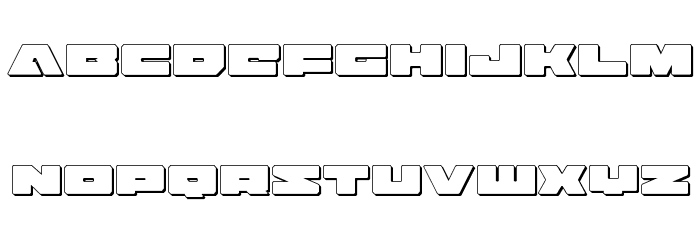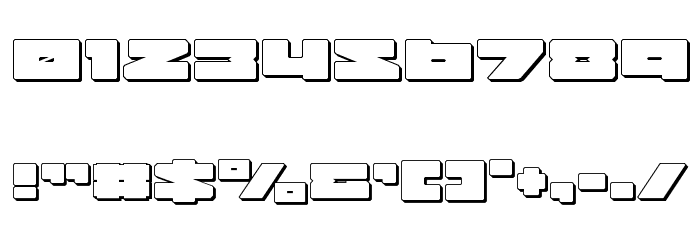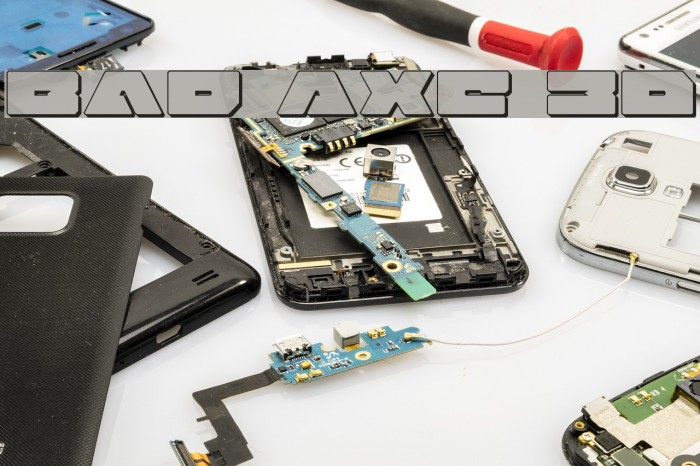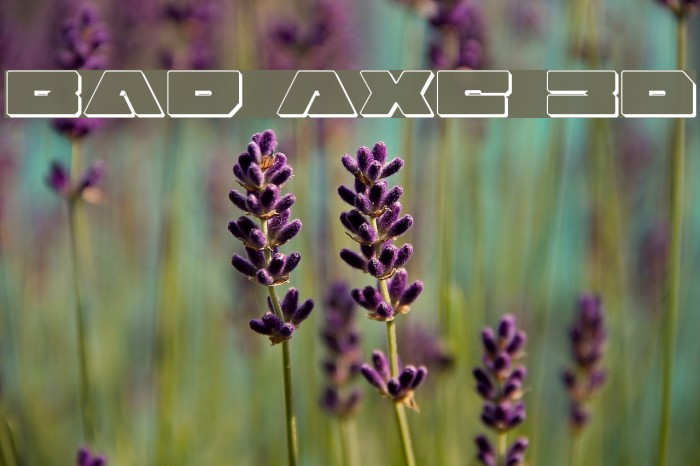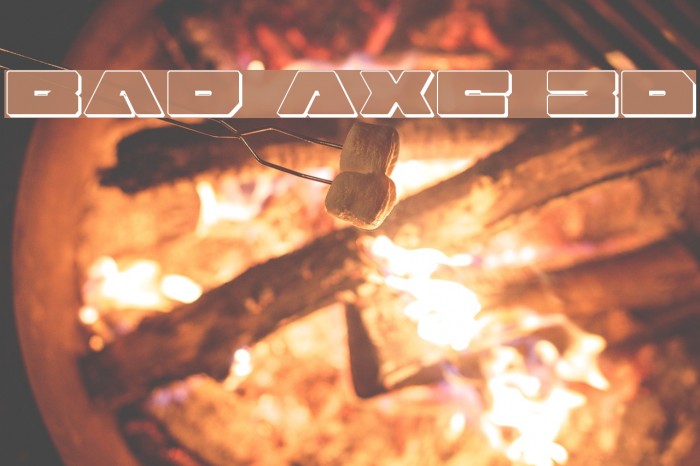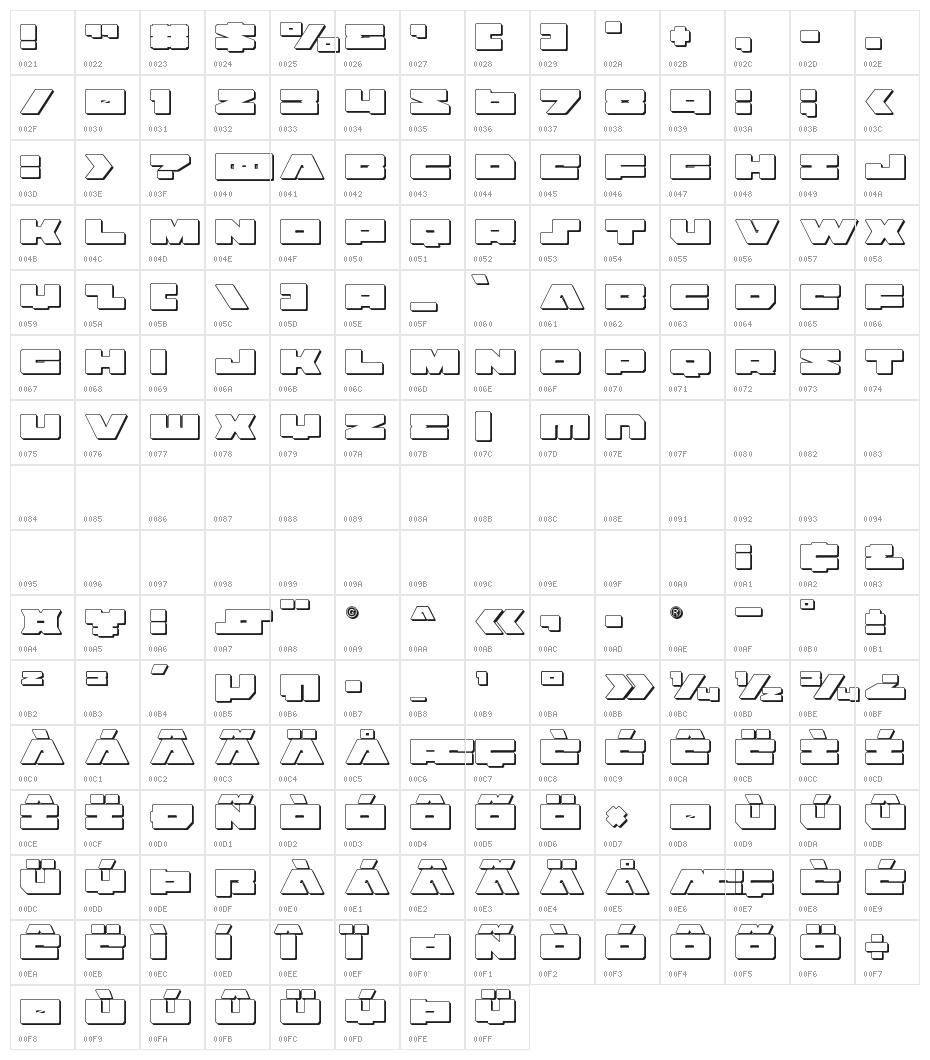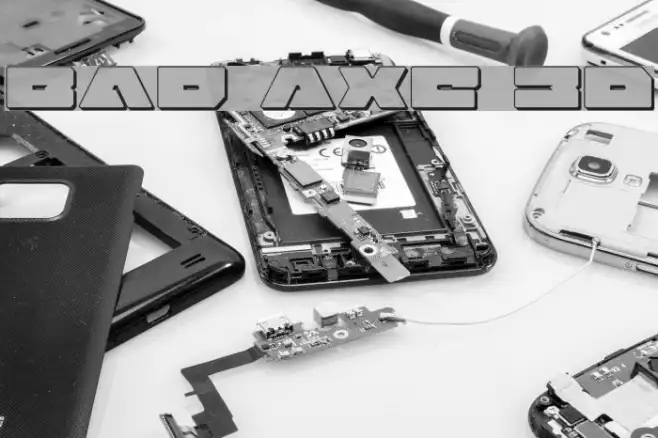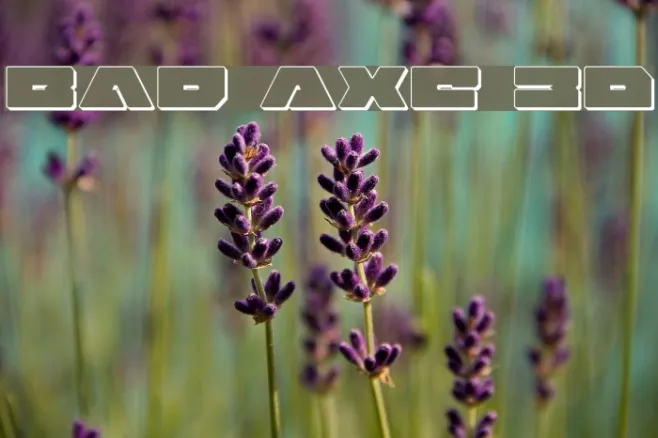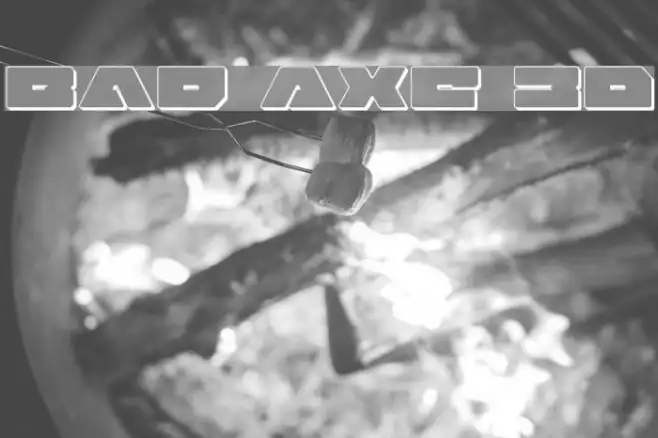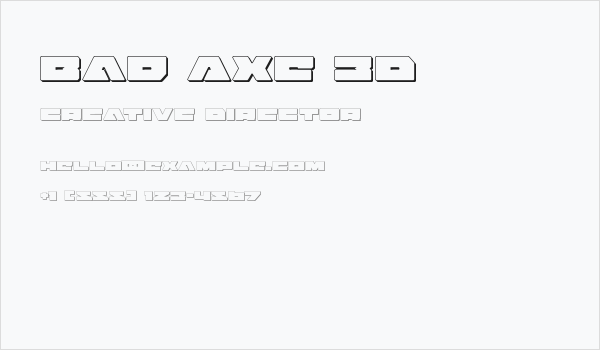
Bad Axe 3D Font
This font features a bold, three-dimensional appearance with a blocky, geometric style. Each character is outlined, giving it a distinct, shadowed effect that enhances its 3D look. The uppercase letters are uniform in height, with sharp angles and straight lines, creating a futuristic and industrial feel. The numbers and special characters follow the same design principles, ensuring consistency across all glyphs. This font's unique structure makes it stand out, ideal for projects that require a strong visual impact.
A bold, 3D geometric font with an industrial and futuristic style.
- Proposed Projects: Ideal for video game titles, tech-themed posters, and branding for modern, edgy products.